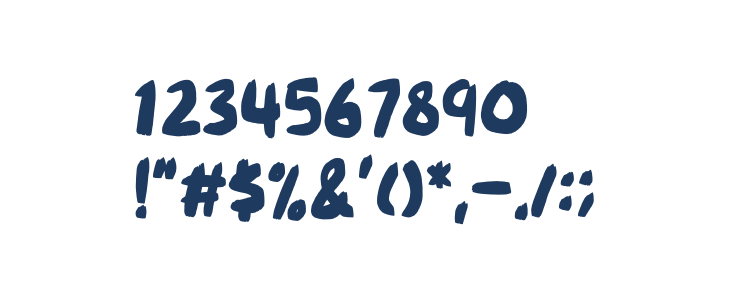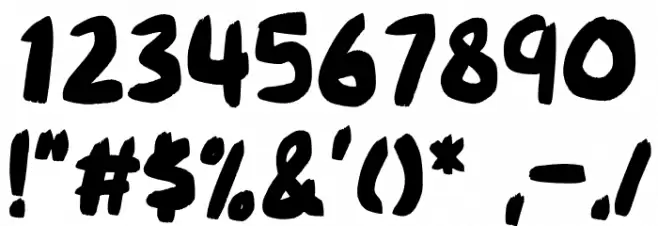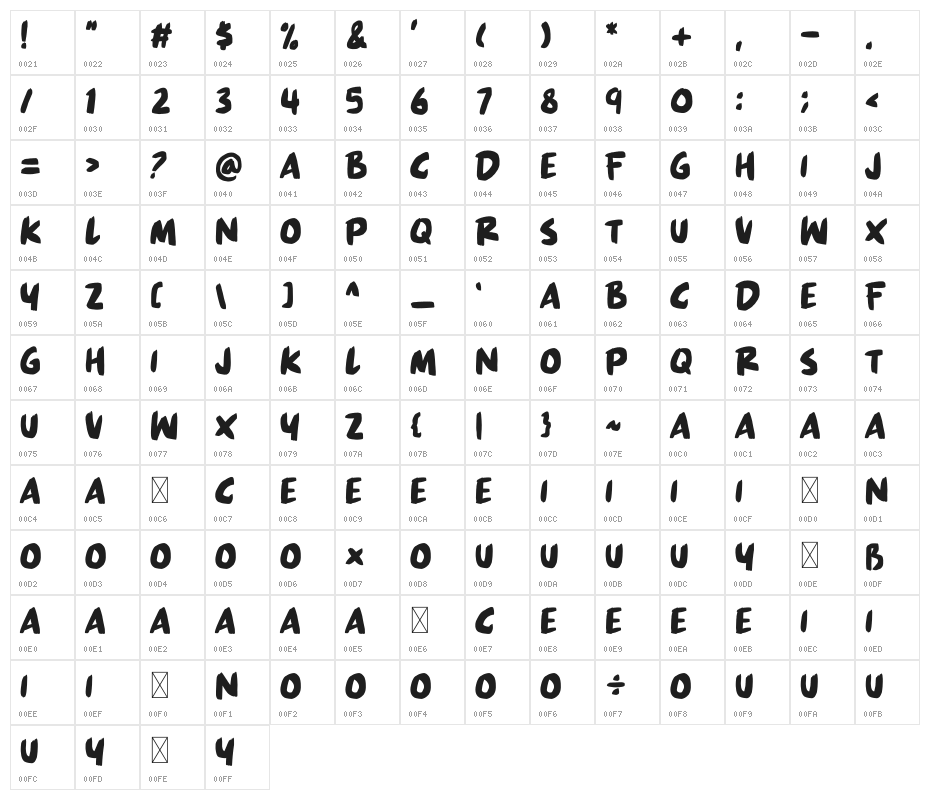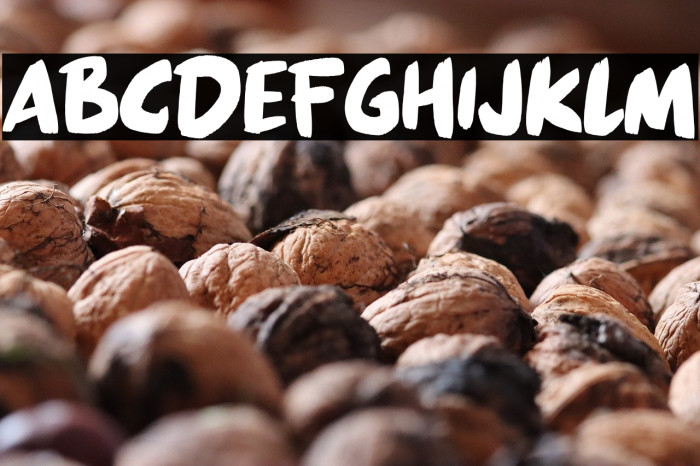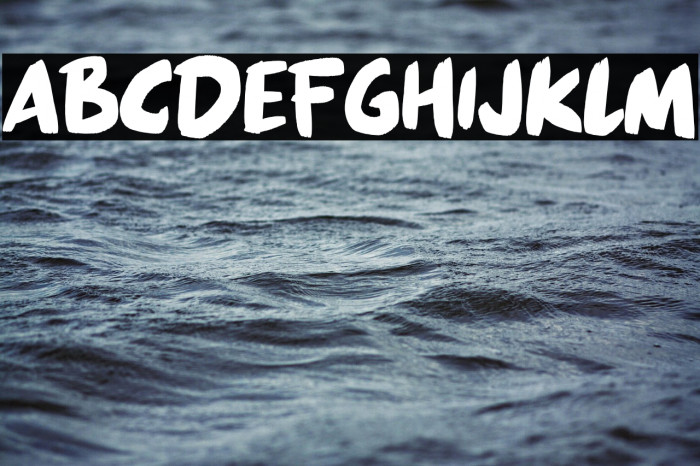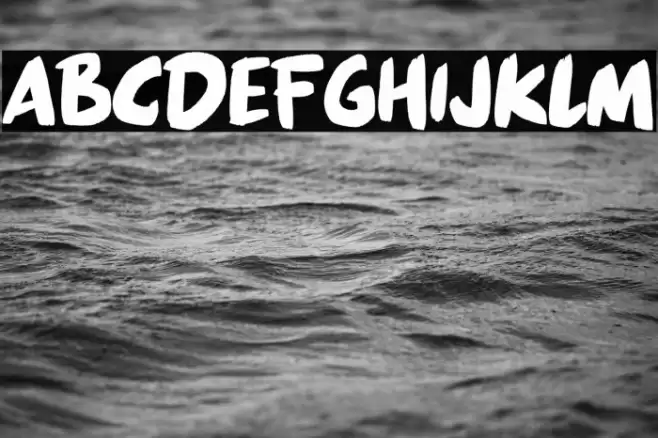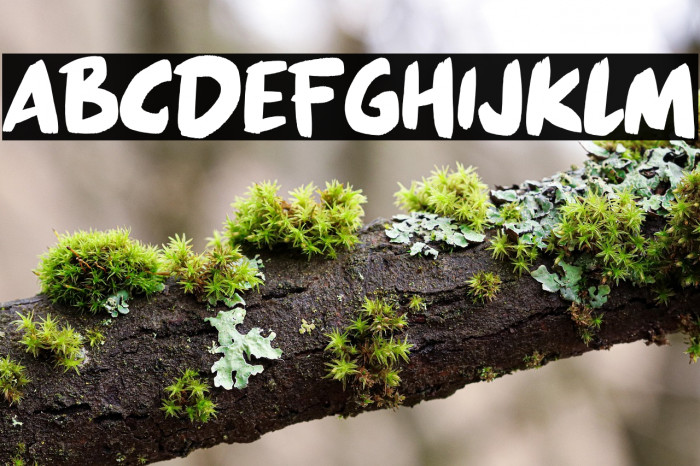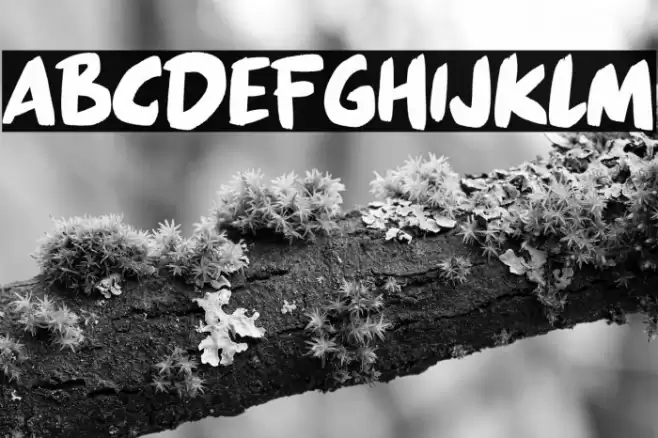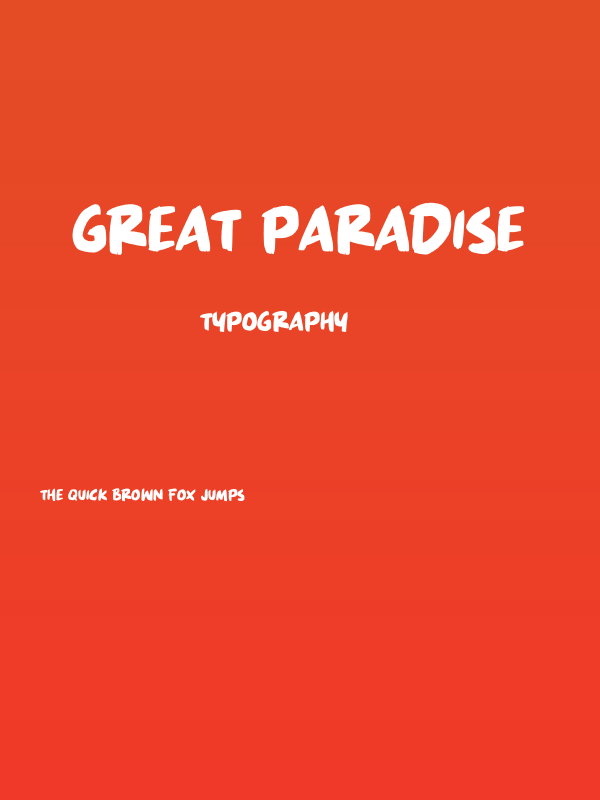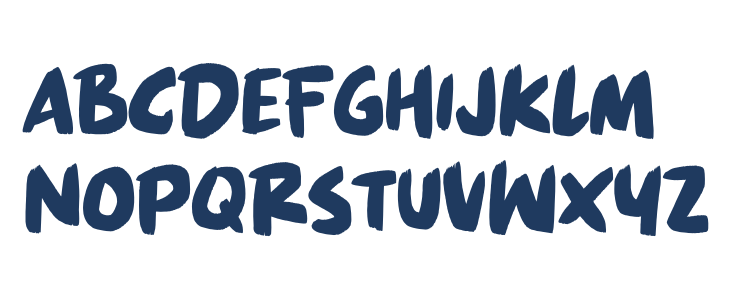
Great Paradise Font
Great Paradise Description
This font is a bold and expressive typeface with a handwritten style. The characters are thick and slightly irregular, giving it a lively and dynamic appearance. The strokes are bold, with a consistent thickness that adds to its strong visual impact. The letters have a playful and informal feel, making it suitable for creative and casual projects. The numbers and special characters maintain the same energetic style, ensuring a cohesive look across all elements. Its unique and artistic design makes it stand out, perfect for grabbing attention.
| Proposed Projects | Ideal for posters, branding, social media graphics, and creative projects that require a bold statement. |